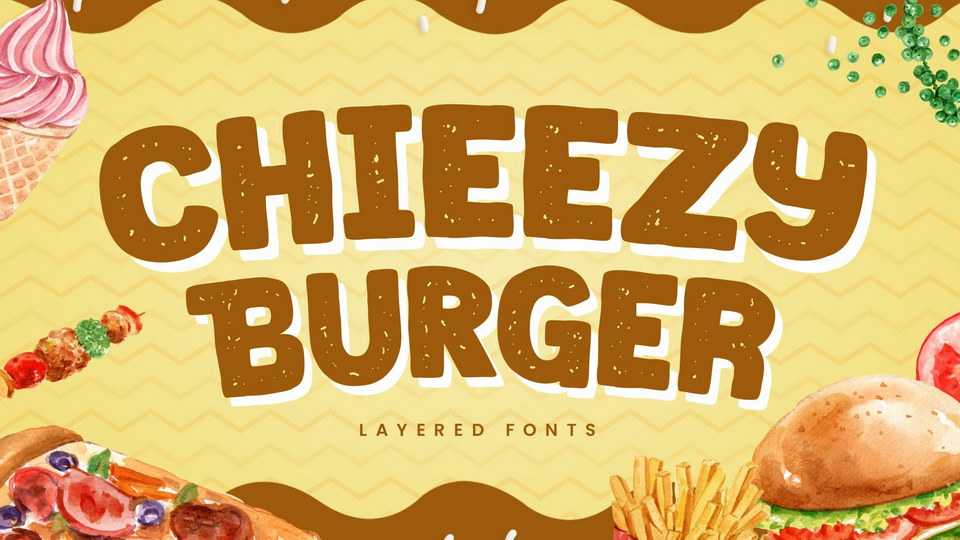
Download Chieezy Burger font, a tasty display typeface, created especially for food branding and food advertising. Inspired by visualization of tasty burgers, crunchy chips, and cheerful emotion of the people who enjoy foods.